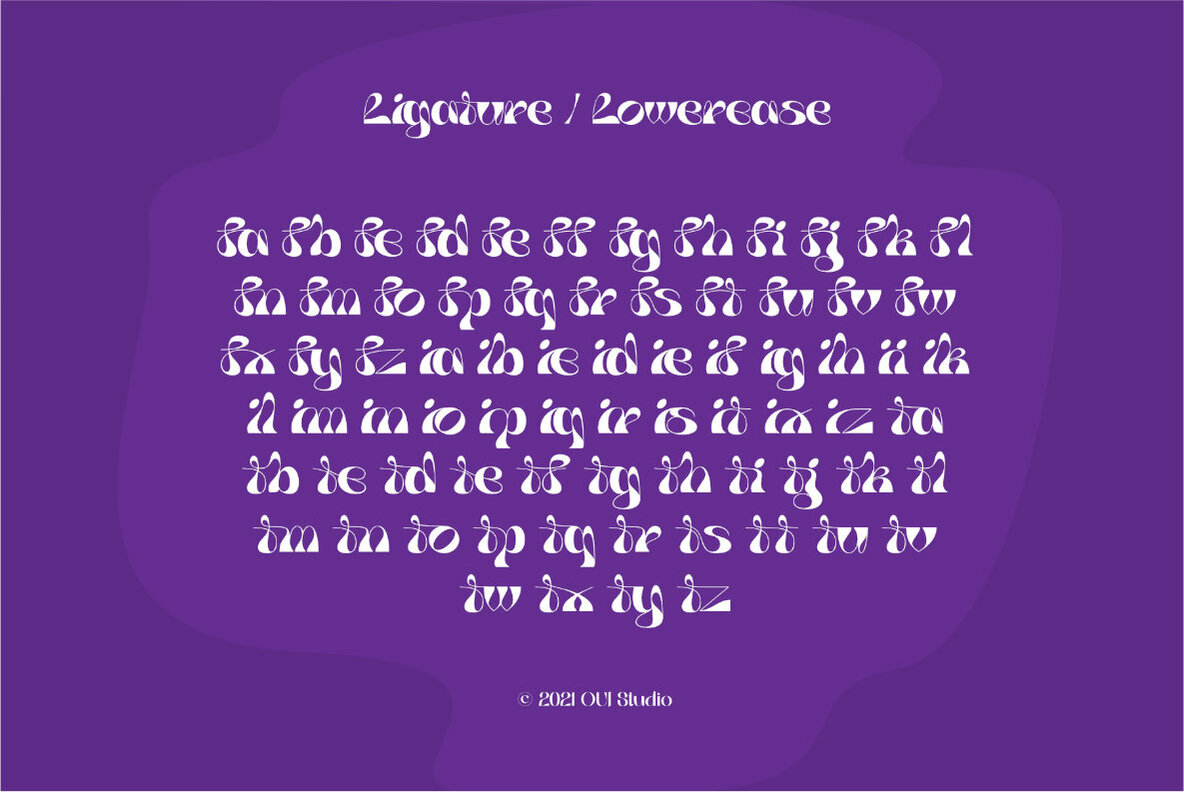
Wickedelic Font
Wickedelic Regular
Wickedelic font is highly inspired by the 60s era and psychedelic vibes. Wickedelic is perfect for display, title, logo, branding, music event, t-shirt design, merchandise, and perfect for anything that wants to show a psychedelic theme.